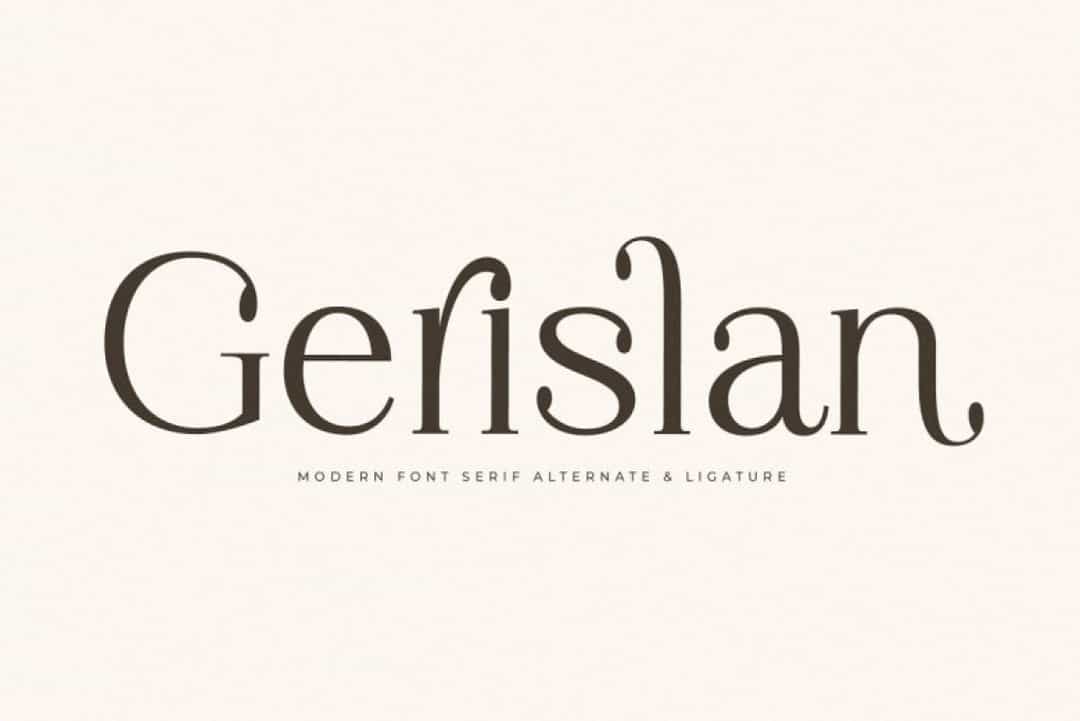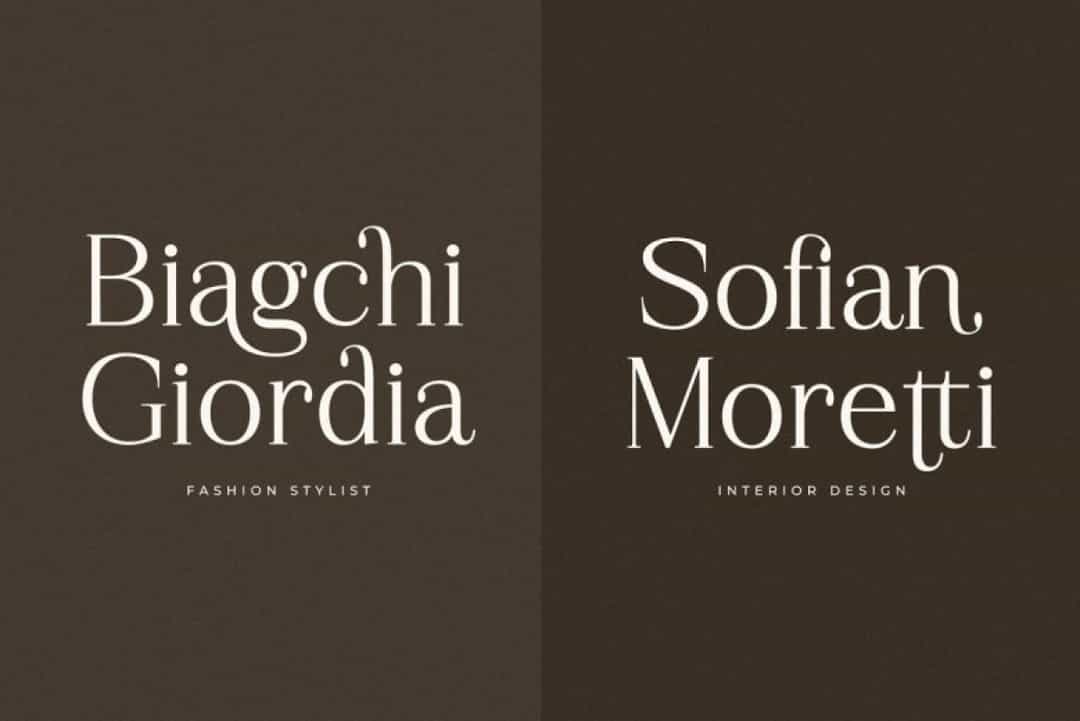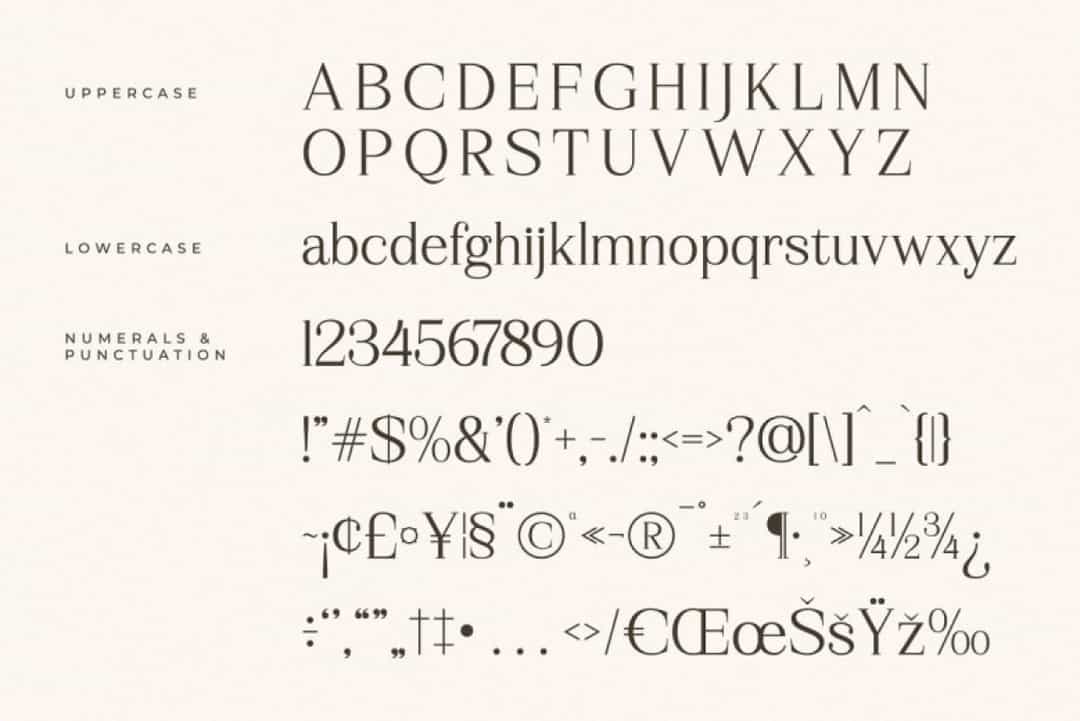
Gerislan is an exciting new serif typeface that stands out with its distinctive style and contemporary appearance. Ideal for creating classy logos, book or film name designs, clothing brand name designs, magazine letters and quotes among many other applications,